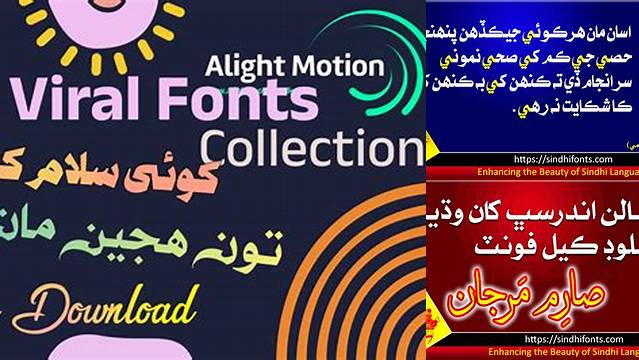
Best Sindhi Fonts: Your Ultimate Guide
Introduction to Sindhi Typography
Sindhi fonts are essential for representing the rich cultural heritage and linguistic diversity of the Sindhi language. The Sindhi language, spoken by millions worldwide, boasts a unique script derived from the Perso-Arabic script, adapted to represent sounds specific to Sindhi. This adaptation necessitates a wide array of specialized fonts that accurately capture the nuances of the language. Typography, the art and technique of arranging type, plays a crucial role in how Sindhi literature, media, and digital content are perceived and understood. The right Sindhi font can enhance readability, convey the intended tone, and preserve the aesthetic appeal of written text. For designers, educators, and content creators, understanding the intricacies of Sindhi typography is paramount for effective communication and cultural preservation. This guide aims to explore the best Sindhi fonts available, their applications, and the importance of choosing the right font for various projects.
The evolution of Sindhi fonts mirrors the historical and cultural influences that have shaped the language itself. Early forms of Sindhi writing were calligraphic, with handwritten manuscripts showcasing intricate designs and artistic flair. As printing technology advanced, the need for standardized and legible fonts became apparent. The introduction of lithography and later digital typesetting brought about a transformation in Sindhi typography, leading to the development of a diverse range of fonts. Today, modern Sindhi fonts are designed to cater to both traditional and contemporary styles, reflecting the dynamic nature of the language and its users. The selection of a font is not merely a technical decision but also an aesthetic one, deeply intertwined with the cultural identity and linguistic heritage of the Sindhi-speaking community. Whether for academic texts, creative writing, or digital media, choosing the appropriate Sindhi font is crucial for ensuring clarity, preserving cultural authenticity, and engaging the reader.
The significance of high-quality Sindhi fonts extends beyond mere legibility. They are vital for the digital representation of Sindhi literature, enabling access to a wealth of cultural and historical content for a global audience. In the digital age, where much of our communication occurs online, the availability of robust and aesthetically pleasing fonts ensures that Sindhi remains a vibrant and accessible language. Furthermore, well-designed fonts contribute to the professional appearance of Sindhi publications and websites, enhancing their credibility and appeal. Educational materials, such as textbooks and online courses, benefit immensely from clear and readable fonts, which aid in comprehension and retention. For businesses and organizations operating in Sindhi-speaking regions, using appropriate fonts in their branding and marketing materials demonstrates respect for the local culture and enhances their connection with the community. In essence, the selection of best Sindhi fonts is an investment in the preservation and promotion of the Sindhi language and its rich cultural heritage.
Top Sindhi Fonts for Every Project
When it comes to selecting the best Sindhi fonts, several outstanding options cater to a wide array of projects and preferences. Among the most popular choices is Lateef, a versatile font known for its clarity and readability. Lateef is an excellent option for body text in books, articles, and websites, as its clean design ensures a comfortable reading experience. Another noteworthy font is Nafees Nastaleeq, which emulates the elegant calligraphic style of Persian and Urdu scripts. Nafees Nastaleeq is particularly well-suited for headings, titles, and formal documents where a touch of sophistication is desired. For those seeking a more contemporary look, Mehran Nastaliq offers a modern interpretation of the traditional Nastaliq style, making it ideal for a variety of digital applications. Each of these fonts brings its unique character and strengths to the table, making them valuable assets for anyone working with the Sindhi language.
Delving deeper into the realm of top Sindhi fonts, it is essential to recognize the importance of matching the font to the project's specific needs. For instance, if you are designing a website, readability on screens is paramount. Fonts like Sindhi Adabi and Awami Nastaliq are optimized for digital displays, ensuring that text remains crisp and clear even at smaller sizes. These fonts often feature subtle adjustments to letter spacing and stroke thickness, enhancing their legibility in the digital environment. On the other hand, if you are working on a print publication, such as a book or magazine, fonts like Gulzar and Sindhica can add a touch of elegance and formality. These fonts are designed to excel in print, where their intricate details and calligraphic flourishes can be fully appreciated. Understanding the nuances of each font's design and intended use is crucial for achieving the desired visual impact.
Beyond the widely used Sindhi fonts, there exists a treasure trove of lesser-known but equally compelling options. Exploring these hidden gems can lead to unique and distinctive designs that set your work apart. For example, certain fonts are specifically designed to mimic the handwriting style prevalent in historical Sindhi documents, lending an authentic and vintage feel to projects. Other fonts incorporate modern design elements, blending traditional aesthetics with contemporary sensibilities. Experimenting with different fonts and font pairings can unlock creative possibilities and help you discover the perfect typeface to convey your message effectively. Online resources and font libraries offer a wealth of options to explore, allowing you to broaden your typographic palette and discover new favorites. The key is to consider the context, audience, and desired tone of your project when selecting a font, ensuring that it not only looks good but also effectively communicates your message.
Choosing the Right Font for Your Needs
Choosing the right font involves carefully considering several key factors to ensure the typeface aligns with the project's objectives and aesthetic requirements. The first consideration should always be readability. A font may be visually striking, but if it's difficult to read, it defeats its purpose. This is particularly crucial for body text, where readers will be spending a significant amount of time. Fonts like Lateef and Sindhi Adabi are excellent choices for body text due to their clean lines and clear letterforms. For headings and titles, you have more leeway to experiment with decorative fonts, but even then, legibility should not be sacrificed entirely. Consider the size at which the text will be displayed or printed and test the font at that size to ensure it remains legible.
The second crucial factor in selecting the right font is the tone and style of the project. Different fonts evoke different emotions and associations, so it's important to choose one that aligns with the intended message. For formal documents and publications, fonts like Nafees Nastaleeq and Gulzar lend an air of sophistication and tradition. For more modern and contemporary designs, fonts like Mehran Nastaliq and Awami Nastaliq provide a fresh and updated look. Consider the overall aesthetic of your project and select a font that complements it. If you are working on a cultural or historical project, you may want to choose a font that reflects the traditional styles of Sindhi calligraphy. For digital media, a font that is optimized for screen display will ensure that your text looks crisp and clear on a variety of devices.
Finally, when choosing fonts, pay attention to the technical aspects of the font file. Ensure that the font is compatible with your software and operating system. Check for proper character encoding and support for Sindhi script. A font that does not correctly render all the characters in the Sindhi alphabet is essentially useless. Also, consider the licensing terms of the font. Some fonts are free for personal use but require a commercial license for professional projects. Respecting font licenses is not only ethical but also avoids potential legal issues. Font foundries and online resources often provide detailed information about font licensing. By carefully considering these factors – readability, tone, and technical compatibility – you can select the perfect Sindhi font for your project, ensuring that your message is communicated effectively and aesthetically.
Tips for Effective Sindhi Typography
Effective Sindhi typography hinges on a nuanced understanding of the script's unique characteristics and how to best present them. One crucial tip is to pay close attention to kerning and spacing. Sindhi script, derived from Perso-Arabic, features connected letters, making proper spacing essential for readability. Inadequate spacing can lead to letters merging, rendering the text illegible, while excessive spacing can disrupt the flow and rhythm of the script. Most professional fonts include built-in kerning tables that automatically adjust the spacing between characters. However, it's often necessary to manually fine-tune kerning, particularly for headlines and titles where the font size is larger and spacing irregularities are more noticeable.
Looking ahead, the development of Sindhi fonts will likely be influenced by several key trends. The increasing use of artificial intelligence (AI) in type design may lead to the creation of automated tools that can assist designers in generating fonts more efficiently. AI algorithms can analyze existing typefaces and create variations, explore new design possibilities, and even optimize fonts for specific applications. Furthermore, the rise of variable fonts, which allow for dynamic adjustments to font characteristics such as weight, width, and slant, offers exciting opportunities for creating more versatile and expressive Sindhi typefaces. These technological advancements, coupled with the passion and creativity of type designers, will undoubtedly shape the future of Sindhi fonts and ensure that this beautiful script continues to thrive in the digital world. By embracing innovation and celebrating tradition, we can ensure that Sindhi typography remains a powerful tool for communication, cultural expression, and the preservation of linguistic heritage.